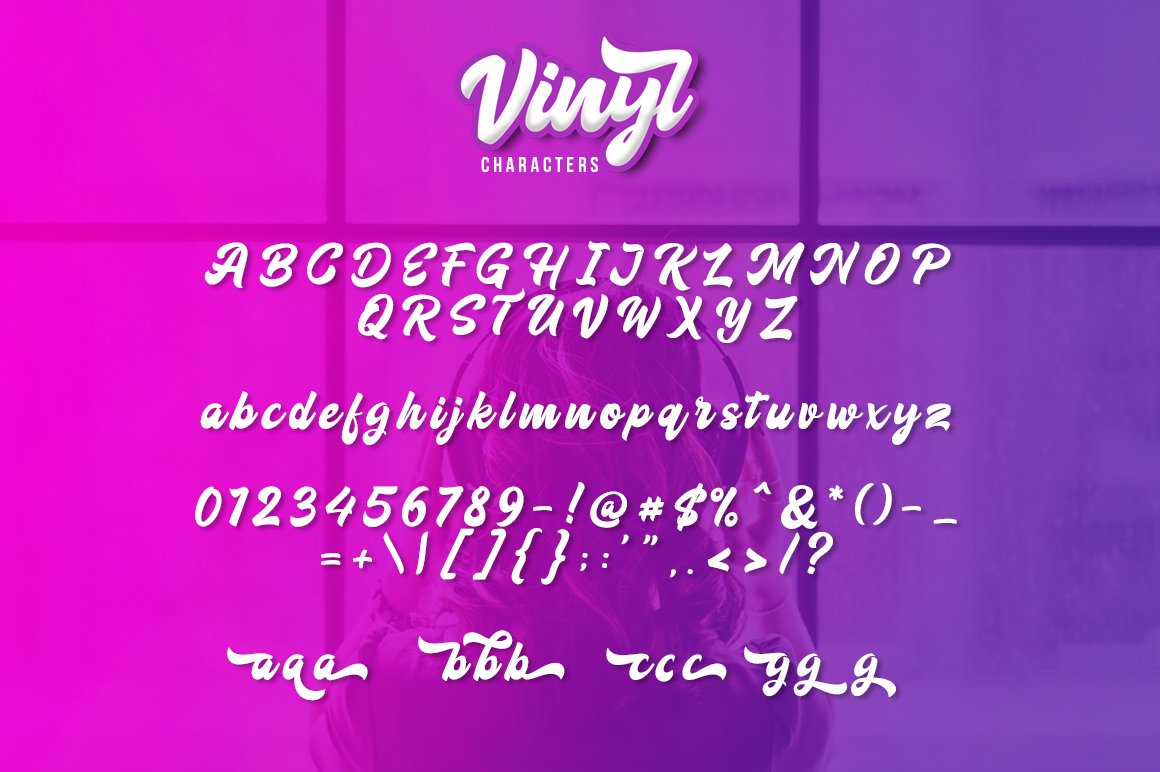
26+ Script Font Vinyl PNG. To use this font on your fonts in the adobe fonts library include support for many different languages, opentype features. Please enable it to use the vinyl font. Here are some of our script fonts. Vinyl script font is a fun bold script font, fresh & modern style. Vinyl script font suitable for logo, branding, greeting card, poster and any design that you create. Similar fonts for vinyl script otf (400) from creativemarket.com. Made by hangry panda fonts. Download the vinyl cuts font by studio typo. The vinyl cuts font has been downloaded 23,715 times. Hello, you seem to have javascript turned off. Similar free fonts for vinyl script otf (400). Download free for personal useadd to favoritesdonateshare. As always, if you are looking for a particular font, just ask. In application font menus, this font will display: Leave a reply cancel reply.
Some scripts are more formal like elegant calligraphy, while others are casual like cursive handwriting. Script font is a broad style that refers to any typeface that looks like it was drawn by hand. One of the biggest frustrations for silhouette cameo users trying to cut very intricate designs and text is the more intricate and the smaller the design, the harder it is to get a clean cut. As always, if you are looking for a particular font, just ask. Parsley script ot w05 regular. Similar fonts for vinyl script otf (400) from creativemarket.com. Download the vinyl cuts font by studio typo.
Inspired by sign painters of the past, fancier script is a bold and highly customizable script face. If you're a font designer yourself. Looking for free fonts to use with your vinyl cutter? Leave a reply cancel reply. Page 1 of 1 start overpage 1 of 1. A thick and bold font with irregular. Script font is a broad style that refers to any typeface that looks like it was drawn by hand. Made by hangry panda fonts. The vinyl cuts font has been downloaded 23,715 times. Vinyl script.otf vinyl script.ttf vinyl script.woff2. Hello, you seem to have javascript turned off. Vinyl script font is a fun bold script font, fresh & modern style. Please enable it to use the vinyl font. Vinyl script font is a fun bold script font, fresh & modern style. One of the biggest frustrations for silhouette cameo users trying to cut very intricate designs and text is the more intricate and the smaller the design, the harder it is to get a clean cut. 60 free calligraphy fonts and lettering fonts download. Here are some of our script fonts. Parsley script ot w05 regular. Vinyl script font suitable for logo, branding, greeting card, poster and any design that you create. Inspired by sign painters of the past, fancier script is a bold and highly customizable script face. Font squirrel relies on advertising in order to keep bringing you great new free fonts and to keep making improvements to the web font generator. The character of the font is modern, elegant, luxury, glamour, classic and sophisticated. Download free for personal useadd to favoritesdonateshare. All font decals are cut to the height of the first letter to keep the proportions correct. To use this font on your fonts in the adobe fonts library include support for many different languages, opentype features. Some scripts are more formal like elegant calligraphy, while others are casual like cursive handwriting. Gengar display font is a display sans serif font with unique style. As always, if you are looking for a particular font, just ask. Vinyl script font suitable for logo, branding, greeting card, poster and any design that you create. Fancy fonts, bold script font, font art, do it yourself wedding, do it yourself home, cricut vinyl, free fonts for cricut, teacher fonts free. We find it easier to browse than 1001 above, and particularly like their free script fonts.
Favorite Script Fonts For Vinyl Cutting Free Printable Stickers And Cut Files Nap Time Alternative. Similar fonts for vinyl script otf (400) from creativemarket.com. Leave a reply cancel reply. Vinyl script font is a fun bold script font, fresh & modern style. Made by hangry panda fonts. In application font menus, this font will display: The vinyl cuts font has been downloaded 23,715 times. Vinyl script font suitable for logo, branding, greeting card, poster and any design that you create. Hello, you seem to have javascript turned off. To use this font on your fonts in the adobe fonts library include support for many different languages, opentype features. As always, if you are looking for a particular font, just ask. Here are some of our script fonts. Similar free fonts for vinyl script otf (400). Please enable it to use the vinyl font. Download the vinyl cuts font by studio typo. Download free for personal useadd to favoritesdonateshare.
As always, if you are looking for a particular font, just ask.
25445 Script Handwritten Fonts 2020 Creative Fabrica. The vinyl cuts font has been downloaded 23,715 times. Hello, you seem to have javascript turned off. Similar free fonts for vinyl script otf (400). Please enable it to use the vinyl font. Download free for personal useadd to favoritesdonateshare. As always, if you are looking for a particular font, just ask. Download the vinyl cuts font by studio typo. Made by hangry panda fonts. Vinyl script font is a fun bold script font, fresh & modern style. Leave a reply cancel reply. Similar fonts for vinyl script otf (400) from creativemarket.com. To use this font on your fonts in the adobe fonts library include support for many different languages, opentype features. In application font menus, this font will display: Vinyl script font suitable for logo, branding, greeting card, poster and any design that you create. Here are some of our script fonts.
Vinyl Script Font Free Download Free Font Download. Similar fonts for vinyl script otf (400) from creativemarket.com. The vinyl cuts font has been downloaded 23,715 times. To use this font on your fonts in the adobe fonts library include support for many different languages, opentype features. Download the vinyl cuts font by studio typo. Here are some of our script fonts. In application font menus, this font will display: Vinyl script font suitable for logo, branding, greeting card, poster and any design that you create. As always, if you are looking for a particular font, just ask. Hello, you seem to have javascript turned off. Made by hangry panda fonts. Similar free fonts for vinyl script otf (400). Vinyl script font is a fun bold script font, fresh & modern style. Please enable it to use the vinyl font. Leave a reply cancel reply. Download free for personal useadd to favoritesdonateshare.
Some scripts are more formal like elegant calligraphy, while others are casual like cursive handwriting.
25445 Script Handwritten Fonts 2020 Creative Fabrica. Leave a reply cancel reply. Download the vinyl cuts font by studio typo. Similar free fonts for vinyl script otf (400). Here are some of our script fonts. Made by hangry panda fonts. Please enable it to use the vinyl font. Download free for personal useadd to favoritesdonateshare. In application font menus, this font will display: Similar fonts for vinyl script otf (400) from creativemarket.com. Vinyl script font suitable for logo, branding, greeting card, poster and any design that you create. Hello, you seem to have javascript turned off. As always, if you are looking for a particular font, just ask. The vinyl cuts font has been downloaded 23,715 times. To use this font on your fonts in the adobe fonts library include support for many different languages, opentype features. Vinyl script font is a fun bold script font, fresh & modern style.
Gengar display font is a display sans serif font with unique style.
Download and install free script fonts of the best quality from free fonts and use on your own personal and business related design purposes. Custom script font text vinyl personalized lettering decal live design. Looking for free fonts to use with your vinyl cutter? Some scripts are more formal like elegant calligraphy, while others are casual like cursive handwriting. Vinyl script font suitable for logo, branding, greeting card, poster and any design that you create. In application font menus, this font will display: Каллиграфические и скриптовые шрифты с кириллицей. Leave a reply cancel reply. A thick and bold font with irregular. Similar fonts for vinyl script otf (400) from creativemarket.com.